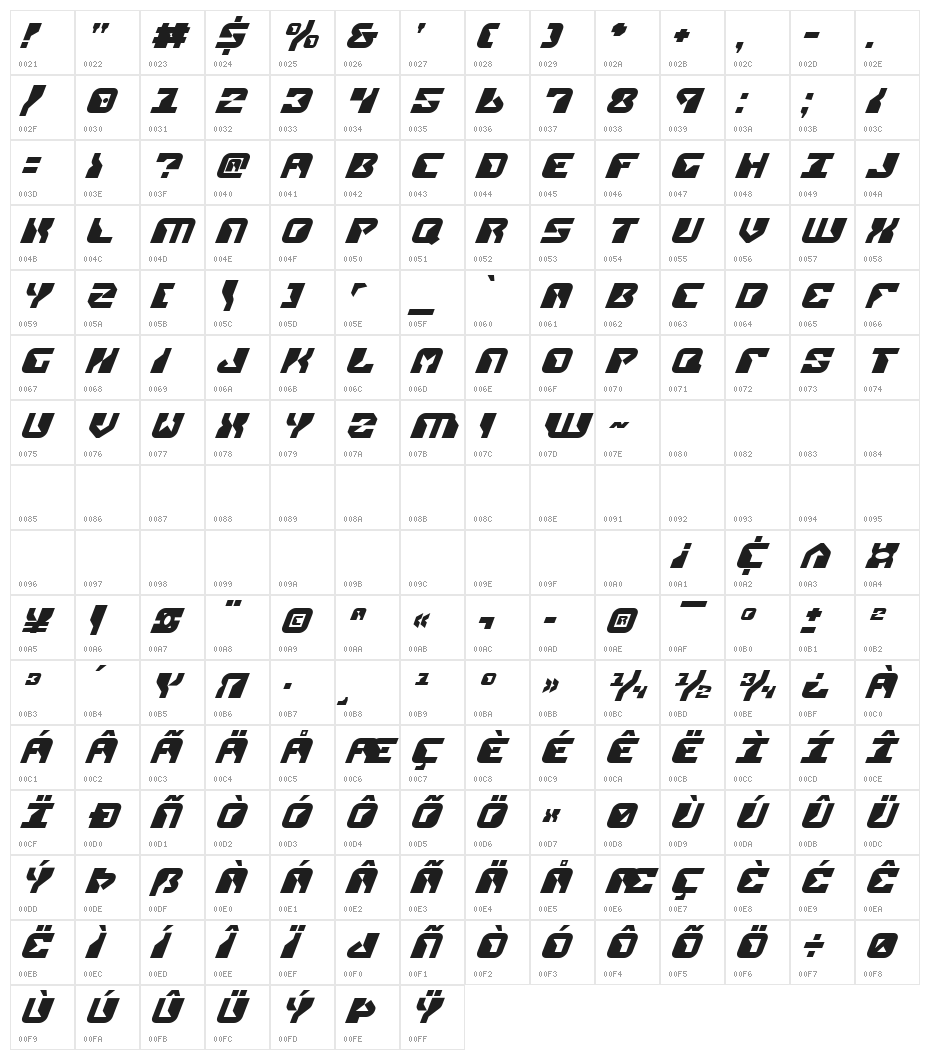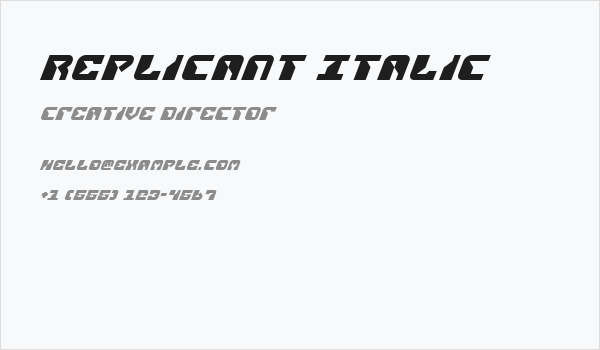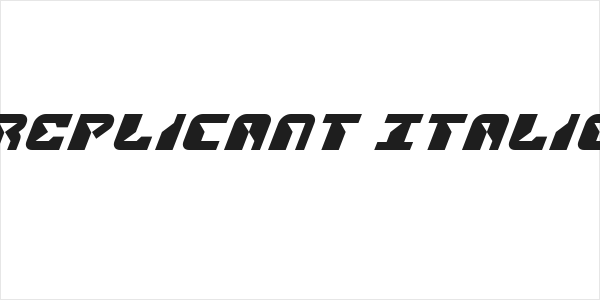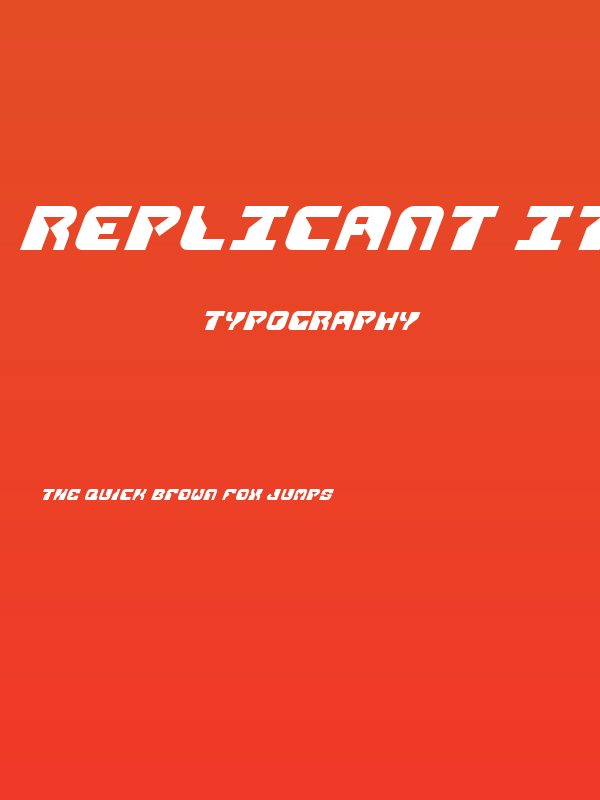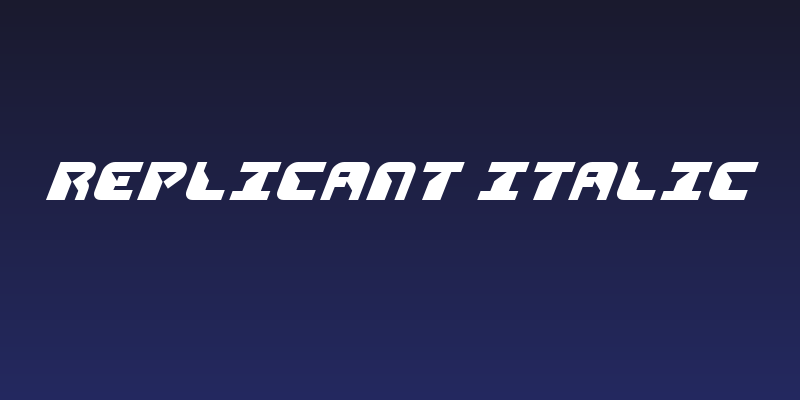
Replicant Italic Font
Replicant Italic Description
This font features a futuristic and angular design, characterized by its sharp edges and slanted orientation, giving it a dynamic and forward-moving appearance. The uppercase and lowercase letters maintain a consistent style, with bold strokes and a distinct geometric form. The numbers and special characters follow the same aesthetic, ensuring uniformity across all glyphs. The overall look is modern and edgy, making it suitable for projects that require a strong visual impact.
| Proposed Projects | Ideal for sci-fi themed designs, technology branding, video game titles, and modern posters. |